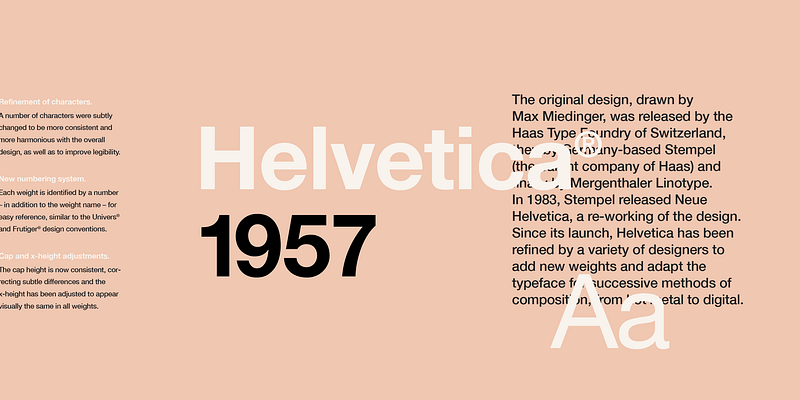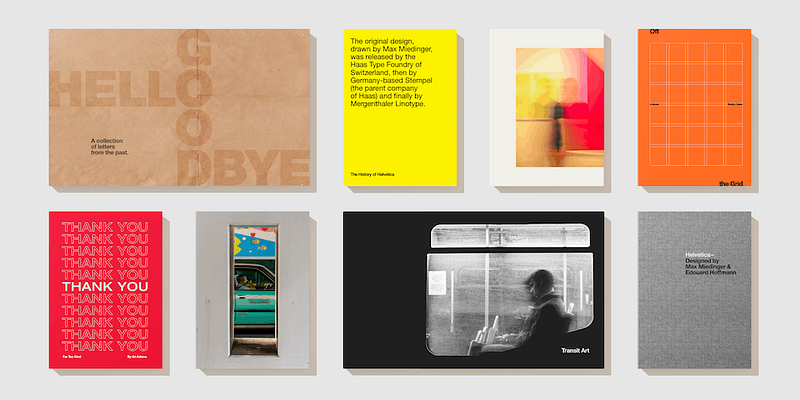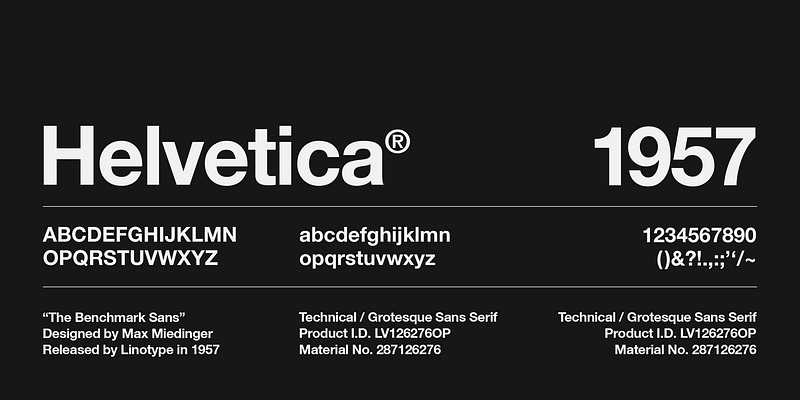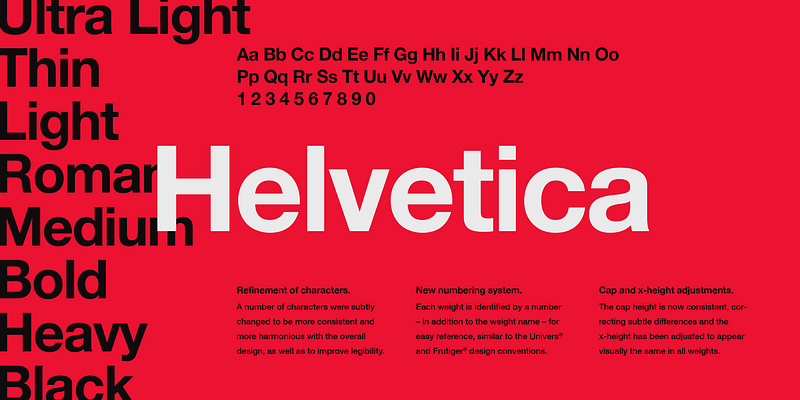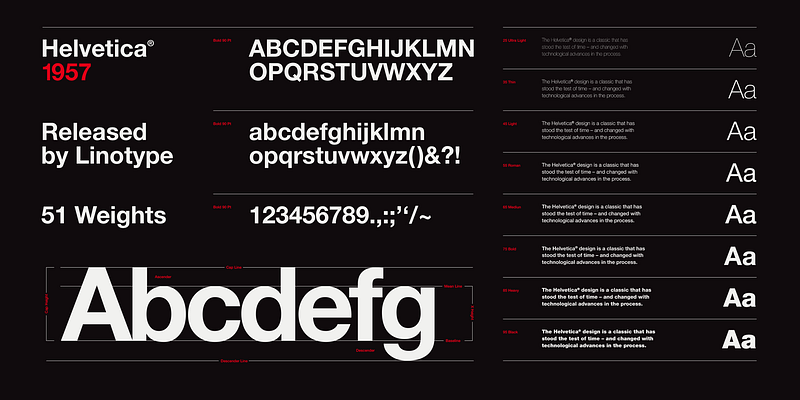
With the name Helvetica (Latin for Swiss), this font has the objective and functional style which was associated with Swiss typography in the 1950s and 1960s. It is perfect for international correspondence: no ornament, no emotion, just clear presentation of information. Helvetica is still one of the best selling sans-serif fonts.